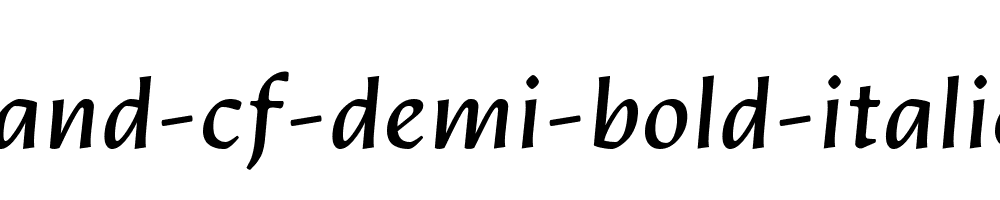
About artifex-hand-cf-demi-bold-italic-webfont
The artifex-hand-cf-demi-bold-italic-webfont is a striking typeface that exudes a sense of elegance and sophistication. With its sharp edges and strong weight, this font commands attention and creates a bold statement. The open counters and clean lines give it a modern feel, while the intricate details like the finials and serifs add a touch of classic charm. The ascenders and descenders are beautifully balanced, creating a harmonious flow from letter to letter. The rounded bowls and looping terminals add a softness to this otherwise strong font, creating a perfect blend of beauty and power. The diagonal stress adds a sense of movement and dynamism, giving the font a lively and expressive quality. Overall, the artifex-hand-cf-demi-bold-italic-webfont is a perfect choice for designs that demand attention and sophistication, striking a balance between elegance and modernity.